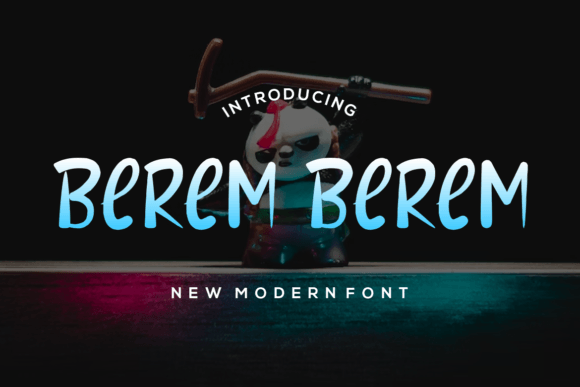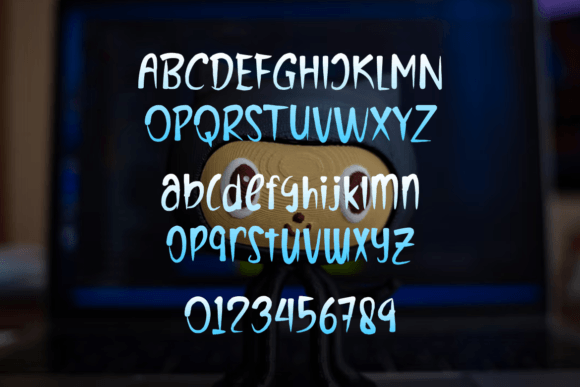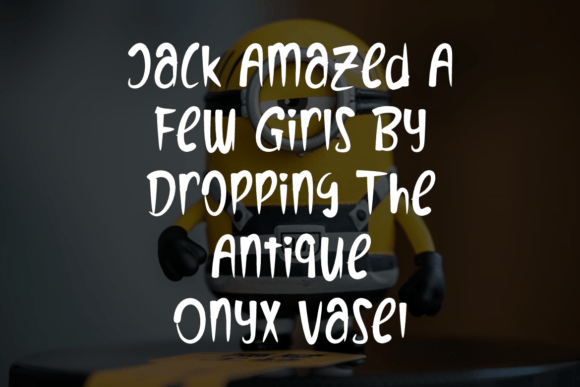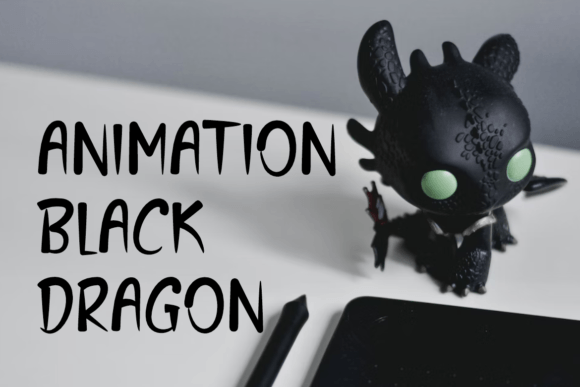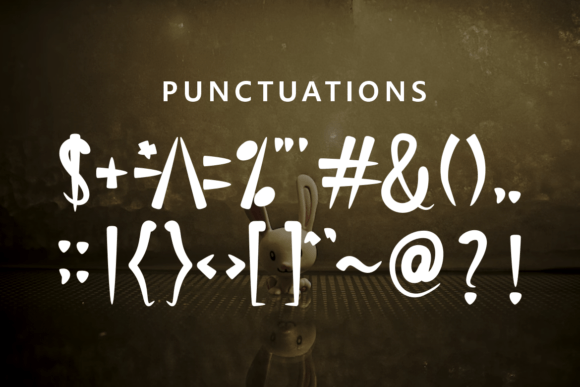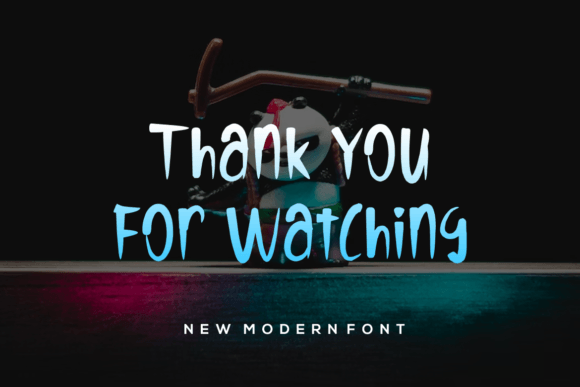
Discover the Fun and Cool Berem Berem Font: Your New Go-To for Creative Projects
Are you tired of using the same old fonts for your creative projects? Look no further! Berem Berem is a fun and cool handwritten font that’s perfect for crafts, digital design, presentations, and making greeting cards. With its unique and playful style, this font has the potential to become your favorite go-to font, no matter the occasion!
What Makes Berem Berem Font So Special?
Berem Berem font is a handwritten font that’s designed to add a touch of personality to your projects. Its fun and cool style makes it perfect for a wide range of applications, from creative crafts to digital designs. The font’s unique characteristics include:
• Handwritten style: Berem Berem font is a handwritten font that’s designed to look like it was written with a pen or pencil. This gives it a personal and informal feel that’s perfect for creative projects.
• Playful and fun: The font’s playful and fun style makes it perfect for projects that require a lighthearted touch. Whether you’re creating a greeting card or a digital design, Berem Berem font is sure to add a smile to your audience’s face.
• Versatile: Berem Berem font is a versatile font that can be used for a wide range of projects. Whether you’re a designer, crafter, or presenter, this font is perfect for adding a personal touch to your work.
Uses for Berem Berem Font
Berem Berem font is perfect for a wide range of creative projects, including:
• Crafts: Whether you’re making handmade cards, scrapbooking, or creating other crafts, Berem Berem font is a great choice. Its handwritten style and playful feel make it perfect for adding a personal touch to your crafts.
• Digital design: Berem Berem font is also perfect for digital designs, such as social media graphics, blog posts, and website headers. Its fun and cool style is sure to grab your audience’s attention and add a touch of personality to your designs.
• Presentations: If you’re looking for a font that’s perfect for presentations, Berem Berem is a great choice. Its clear and easy-to-read style makes it perfect for titles, headings, and body text.
• Greeting cards: Berem Berem font is also perfect for making greeting cards. Its playful and fun style makes it perfect for birthdays, holidays, and other special occasions.
Why Berem Berem Font Should Be Your Go-To Font
Berem Berem font has the potential to become your favorite go-to font for several reasons:
• Easy to read: Despite its handwritten style, Berem Berem font is easy to read and clear. This makes it perfect for body text, titles, and headings.
• Versatile: Berem Berem font is a versatile font that can be used for a wide range of projects. Whether you’re a designer, crafter, or presenter, this font is perfect for adding a personal touch to your work.
• Fun and playful: Berem Berem font is a fun and playful font that’s sure to add a smile to your audience’s face. Its unique style makes it perfect for creative projects that require a lighthearted touch.
In conclusion, Berem Berem font is a fun and cool handwritten font that’s perfect for creative projects. Its unique style, versatility, and easy-to-read characteristics make it a great choice for designers, crafters, and presenters. Whether you’re making crafts, digital designs, presentations, or greeting cards, Berem Berem font has the potential to become your favorite go-to font. So why not give it a try and see how it can add a personal touch to your projects?